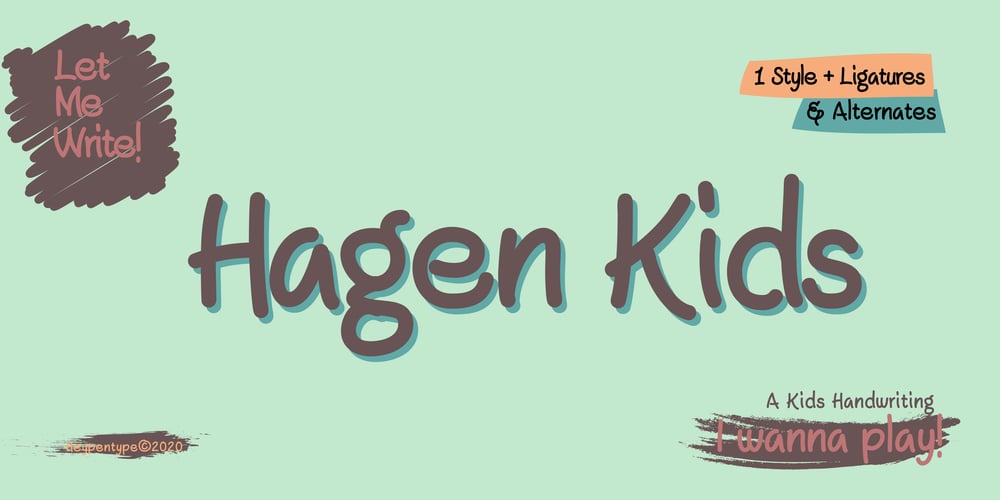
Hagen Kids
Hagen Kids font
Hagen Kids Font Family was designed by Rofiki Anas Maruf and published by Heypentype. Hagen Kids contains 1 styles and family package options. Hagen Kids is a great font for your fun design project. Supports most Latin-based languages and comes with standard and discretionary ligatures. This font is packed with alternates that you can play with. Hagen kids is suitable for long text writing, subhead, or headlines for your content. This font gives a sense of informality, friendly and personal feel to your design. You can apply this fonts onto text books aimed at children. Try it for yourself.